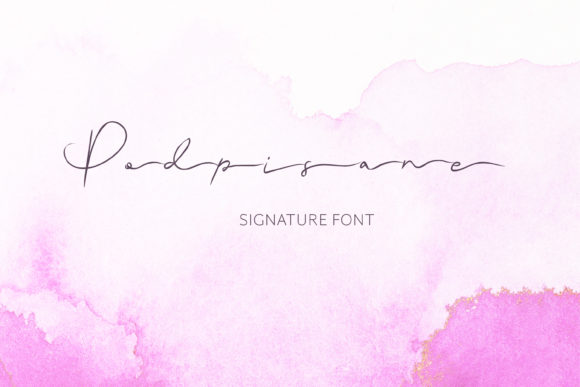
Introducing Podpisane Font, the epitome of sophistication and creativity! This exquisite script font, meticulously crafted by DIGI Potwor, effortlessly blends the allure of timeless elegance with the authenticity of calligraphy. Prepare to be mesmerized by its enchanting charm, as Podpisane Font graces your digital creations with an air of unparalleled sophistication.
Immerse yourself in a world of boundless possibilities, where Podpisane Font becomes your muse. Let your imagination soar as you design captivating wedding invitations that exude romance and elegance. Transform ordinary stationery into exquisite works of art, adorned with the delicate strokes of Podpisane's enchanting script.
Elevate your social media presence with eye-catching posts that demand attention. Podpisane Font empowers you to craft visually stunning content that will leave a lasting impression on your audience. Unleash your inner artist and create heartwarming greeting cards that convey your heartfelt sentiments with a touch of sophistication.
But Podpisane Font's allure extends far beyond its aesthetic beauty. Its versatility knows no bounds, making it the perfect choice for a wide range of creative endeavors. Its timeless elegance lends itself seamlessly to personal branding projects, where it can add a touch of professionalism and sophistication to your online presence.
Step into a world of endless creativity with Podpisane Font. Let its delicate curves and enchanting flourishes inspire you to craft digital masterpieces that captivate and enchant your audience. Experience the magic of Podpisane Font today and unlock a realm of limitless creative possibilities.